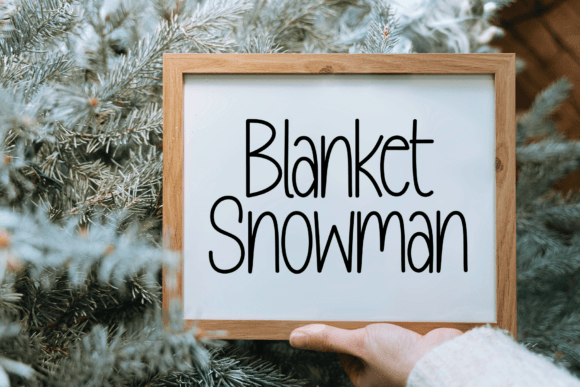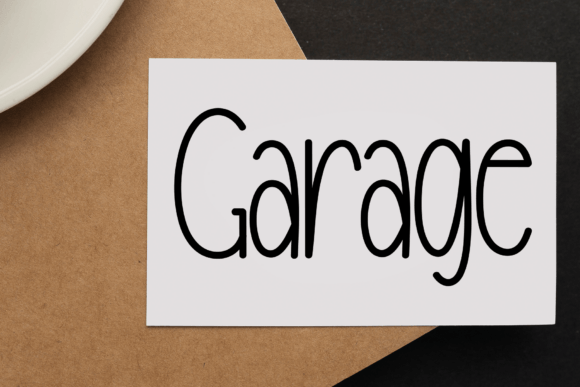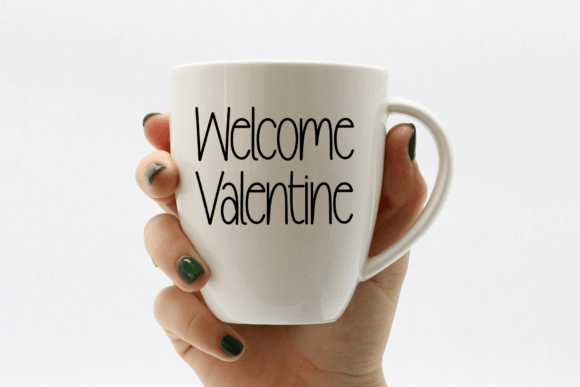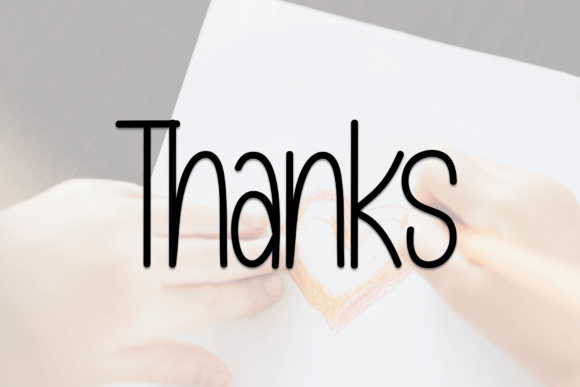
Introduction to School Valentine Font
School Valentine is a handwritten font that looks like it was drawn with a marker.
Having a relaxed and sporty feel, it is very suitable for branding, logos, wedding supplies, greeting cards, fashion, lookbooks, marketing promotions, and whenever you want your design to look luxurious and elegant but still casual .